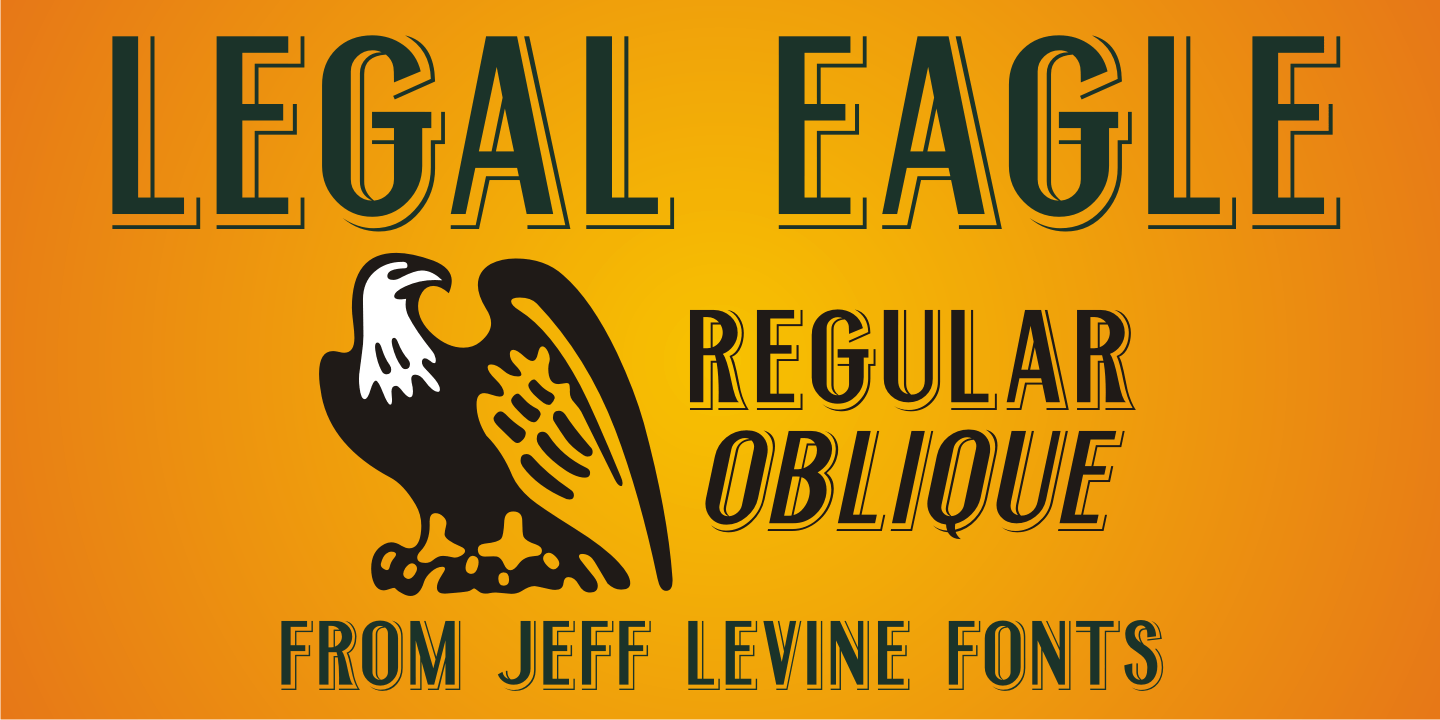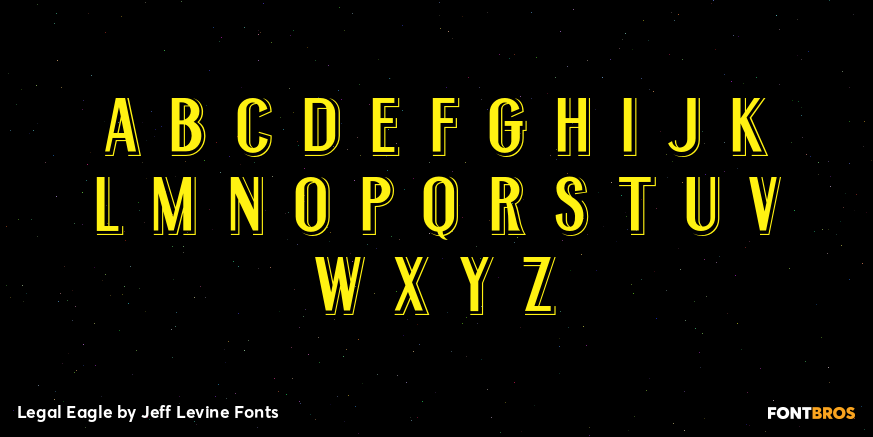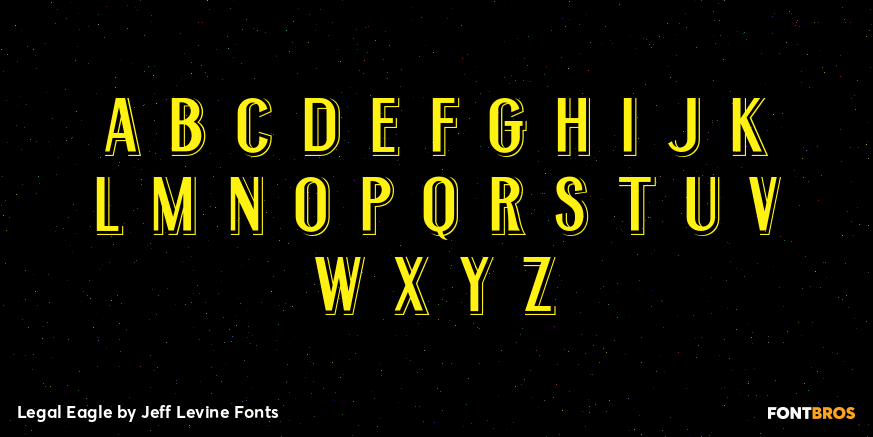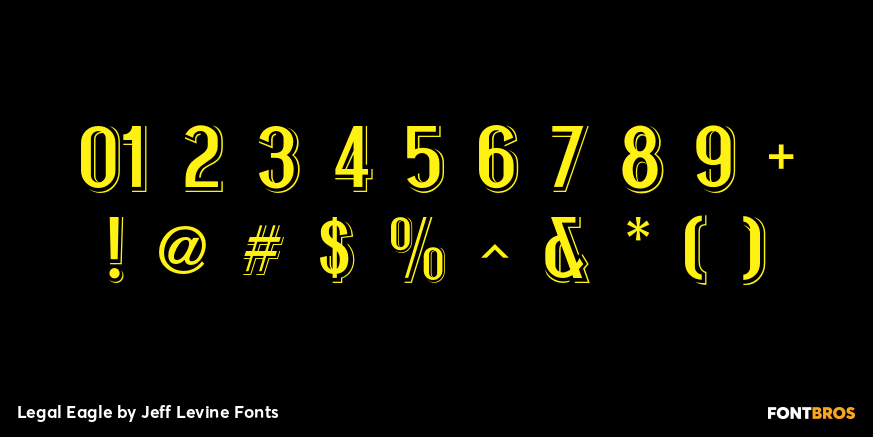
Legal Eagle
The lettering on the cover of the sheet music for 1919's 'The World is Waiting for the Sunriseā€ was set in a decorative sans serif with an engraved line adorning each character.
Reminiscent of the headlines of legal documents, way bills, stock certificates and the like, the digital version of the design was given the name Legal Eagle JNL and is available in both regular and oblique versions.
A companion font without the engraved lines is also available as Junior Clerk JNL.